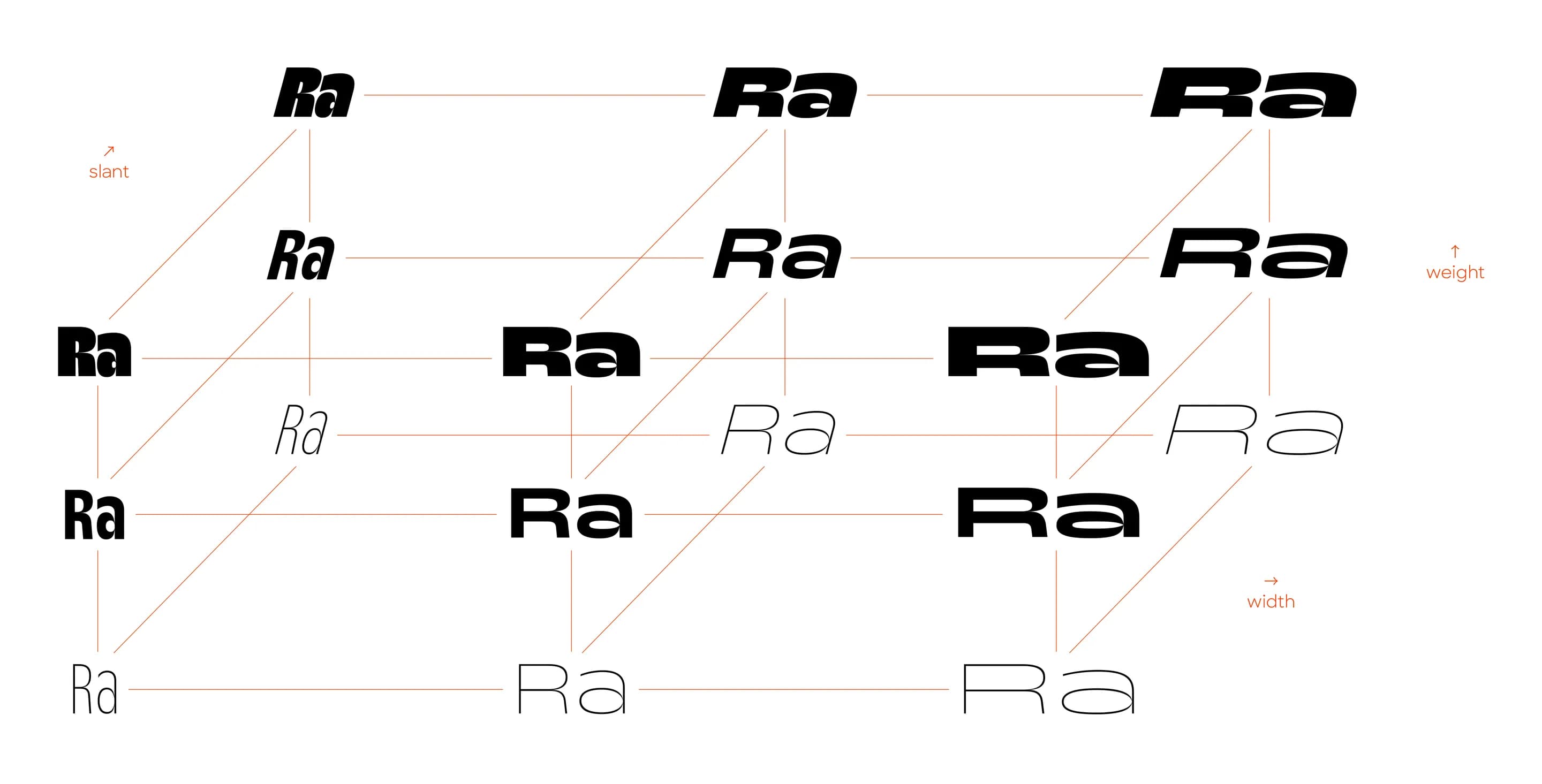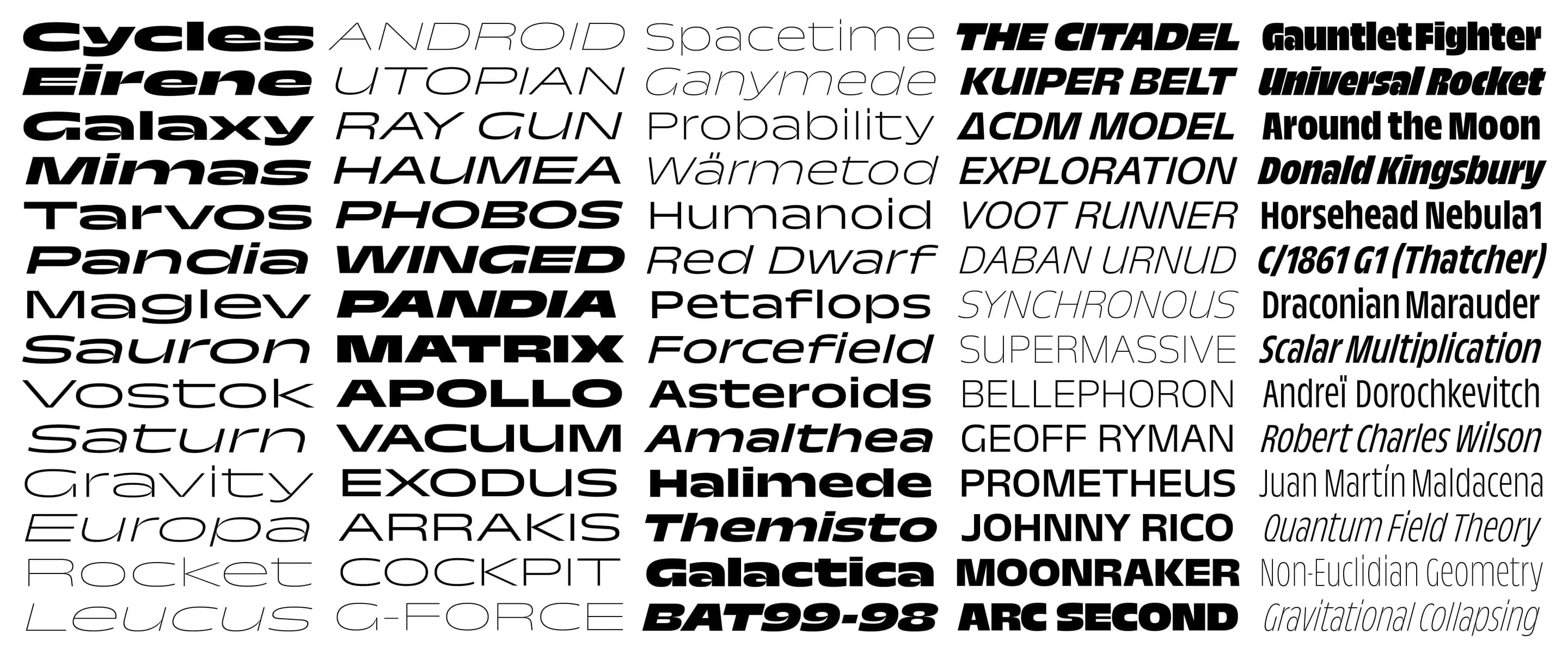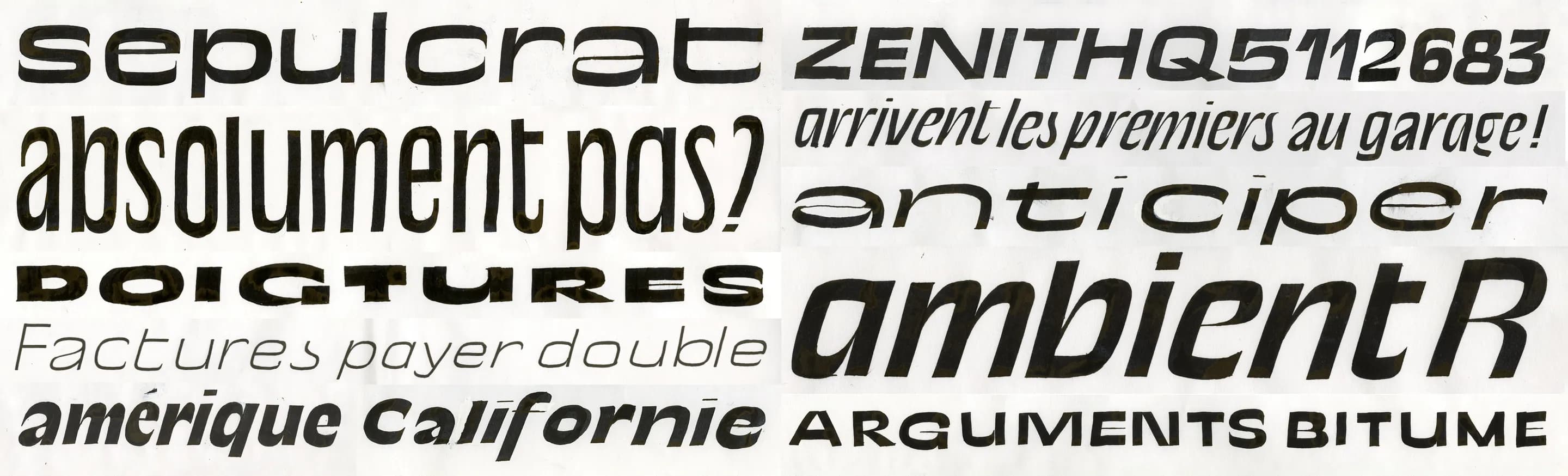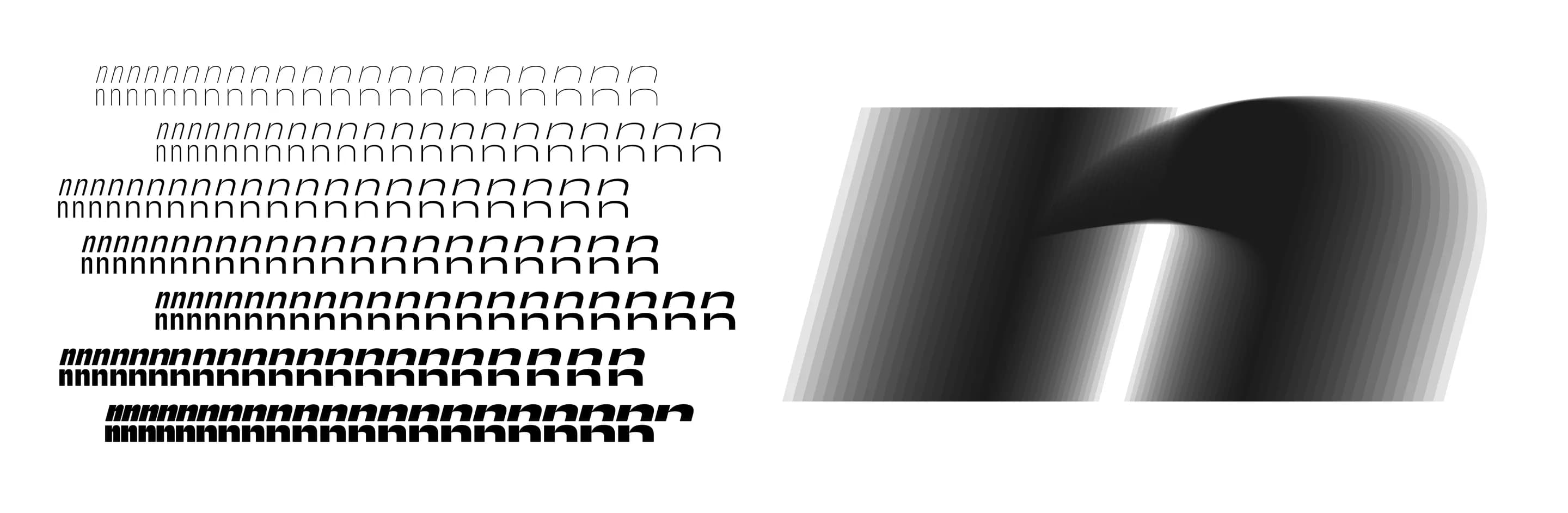
Making waves in the industry for the past five years, Marc Rouault discusses the newly released Trois Mille (3000)
Released yesterday on Sharp Type, Trois Mille (3000) has influenced the typographic zeitgeist for the past five years. Here, it’s creator discusses the ins and outs of its story.
You may have already heard about Trois Mille (3000), the typeface that’s been making waves for the past five years in the design industry. Released just yesterday on Sharp Type, it’s a bold design that’s been influencing the design zeitgeist even before it was published; one contrasting sans serif after another. But how and why you may ask? Well, it’s a long story that starts with a type designer named Marc Rouault. Half a decade ago, long before Trois Mille (3000) was available to the general public, Marc was completing his graduation project at the KABK Type&Media master’s program in The Hague.
It was there that Trois Mille (3000) started. In the beginning, there were several directions that the budding designer wanted to explore, but he started by experimenting with the tools he’d discovered in his studies so far. One of them was a broad calligraphy pen which, by nature, creates contrasting letterforms which undulate between thick and thin marks. “So, I started to use that tool a bit differently, trying to draw a low contrast (mono linear) letters by orienting my pen at zero to 90 degrees. By doing this, only the connections between different elements of a letter get thin,” he explains, “while the rest remain thick.”
It’s an aesthetic that is seen up and down the type design landscape today, but arguably this is where it all started. In its boldest styles, some internal strokes have to be thin, like the middle bar of the ‘E’ or ’S’ for instance, so the rest of the strokes can be bold. At the same time however, all strokes end with a vertical “like a humanist model rather than a calligraphic one”, adds Marc, as seen previously in Gill Sans or Antique Olive. In a way, Trois Mille (3000) became a reinterpretation and extension of such classics – albeit with more extreme weights and width characteristics – inspiring a new generation of contrasting typefaces in its wake which follow the same set of rules.
He was first drawn to the medium with a realisation that anyone could draw their own letterforms as opposed to using an existing one. And, once he delved further into the technicalities, he discovered a myriad of elements to play with, tweaking restrictions and minor aspects of letter structures here and there. For Marc, it is this “mix of freedom and constraint” that sustains his engagement in the craft. But it is also the idea of providing a service to others that intrigues him. “A typeface is not the end, but a tool that will contribute to another piece of design,” he adds, “and become something entirely its own. That makes it very exciting, to see and have no control over how and where your typeface will be used.”
Fundamentally for Marc, the art of typography comes down to communication. What continues to fascinate him is how “arbitrary and meaningful letters are at the same time.” Letters are visual signs which can be arranged into language and in turn, messages. As a type designer, Marc and others in this profession “play with these abstract shapes and symbols (now known as the alphabet) and imbue another layer of meaning to them.” All in all, culminating in a unique typeface, each one with different layers of meaning and flair than the one before it.
It’s an aspect of human history and culture that stretches back thousands of years – from civilisations far and wide – continuing to intrigue designers all over the world for its infinite variations. On top of all this, another aspect of the medium Marc finds fascinating, is that typography is rather invisible. “Normal people will read what’s written and that’s it,” he says on the matter. “They will not (and should not) stop and look at that nice capital ‘G’ you’ve drawn.”
Thrilled to now be part of the Sharp Type family, Marc is excited to see how users will interact with the extensive type family that is Trois Mille. He describes it as a “static variable font”, having created the typeface from a system where the width, weight, slant, super-ellipse axis and so on can be tweaked. This technology has already existed since the late 90s with systems such as Multiple Master or TrueTypeGX, and when Marc was first developing the typeface during his master’s studies, one of his teacher’s Erik van Blokland “kept telling me such technology would be back someday.” So, with this in mind, he developed the typeface with a huge variety of styles all in one font. And lo and behold, a few months after he graduated, the Variable Fonts system was announced at ATypI Warsaw. “While the technology is back and out, it’s still in development stages,” Marc goes on. “So Trois Mille is being released as a huge family of many many instances.” As was aforementioned, it’s basically a static variable font.
Having referenced many of Trois Mille’s components from other designs, when it comes to inspiration in type design: “I think nobody owns a style of a kind of shape,” says Marc. The area of expression is so limited in type design (confined to the alphabet) there are bound to be stylistic similarities. “You cannot always say what inspired what, so in the end,” says Marc on the often prickly topic of originality, “it’s better to be flattered than bothered by familiar shapes or features you see in new designs that could be based on yours.”
That being said, in general, Marc finds trends in the industry interesting to observe. The more involved you are in a discipline, the earlier you can see one emerging. But for type designers involved in a notoriously lengthy and arduous process, “the chances of missing the trend while trying to reach it are big.” Most creatives want to produce work that feels bang on trend, and arguably, it’s part of the job. When it comes to typography, though the trends take a long time to develop, they can be traced from the underground culture of the time which slowly surface into the mainstream. While this can be useful in creating a trendy relevant typeface, for Marc at this moment of time “my approach is to explore whatever typographic style I like, hoping that someday it might synchronise with a new visual trend and become a successful typeface. I don’t know if it’s a good strategy, only the future can tell.”